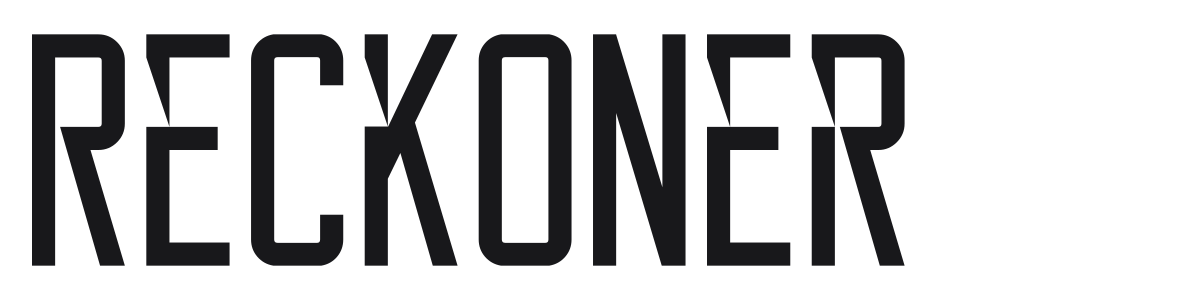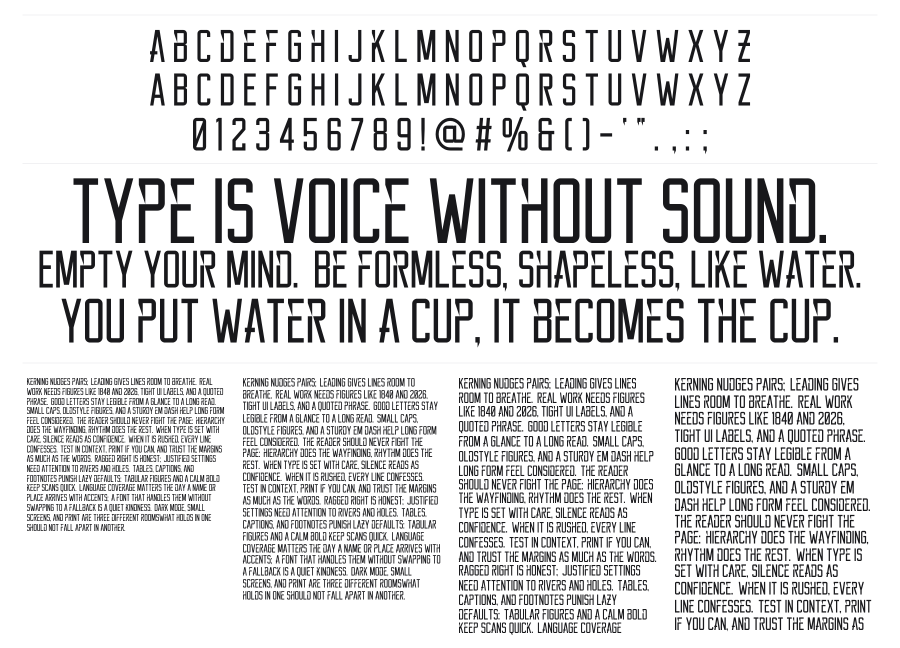
Reckoner
Reckoner is a bold condensed stencil sans with a hard industrial edge. Stencil cuts slice through strokes at precise junctions, giving each character a segmented, modular structure that reads instantly at large sizes. The narrow proportions and flat terminals pull from military and constructivist traditions without feeling like a period piece.